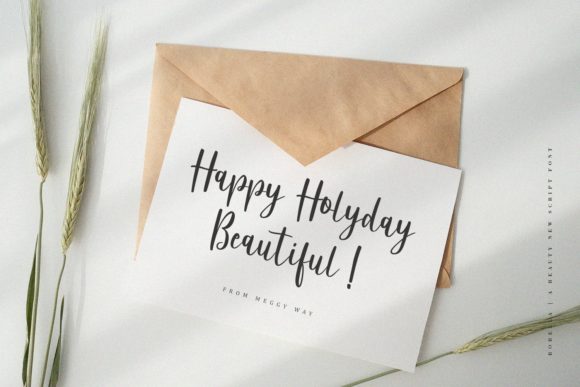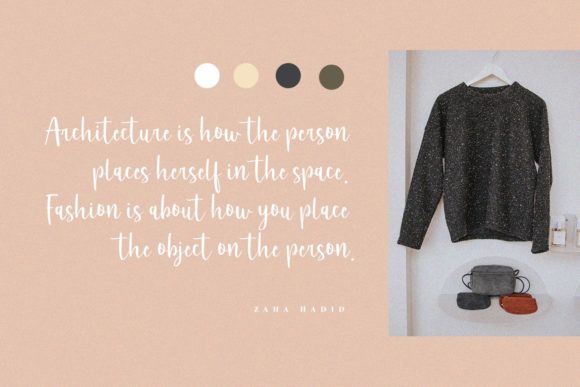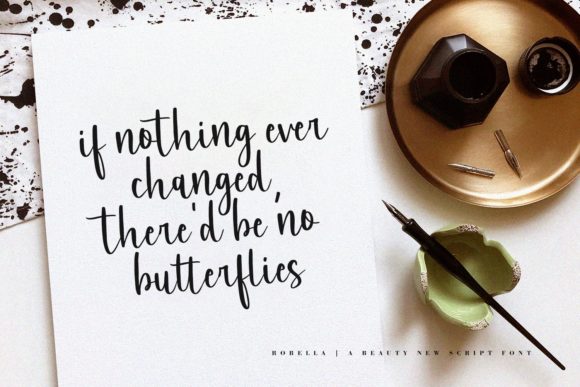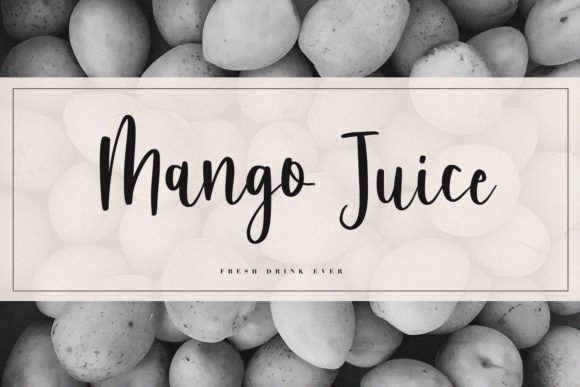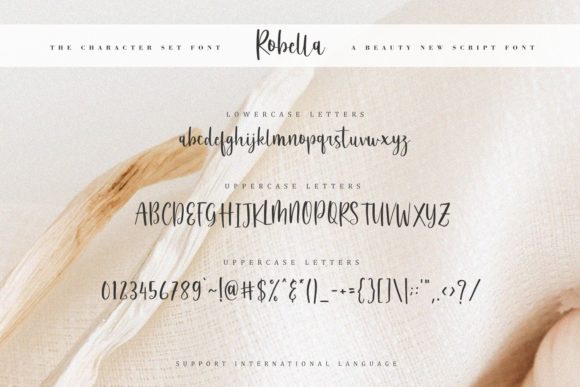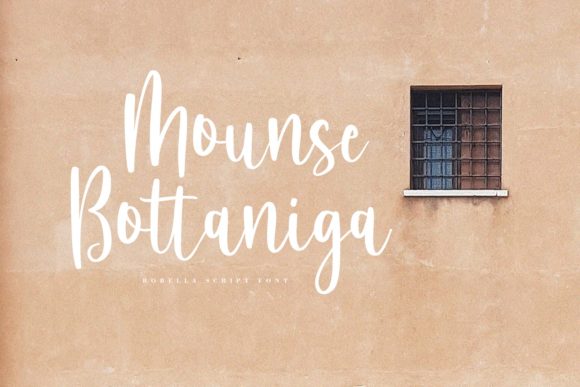
Introduction to Robella Font
As a designer, there’s nothing quite like the thrill of discovering a new font that perfectly captures the essence of your creative vision. For me, it was a late-night brainstorming session with a blank page and a flickering computer screen. I was on the hunt for the perfect handwritten font to bring a magazine cover to life. That’s when I stumbled upon Robella Font – a charming and elegant font that has since become a staple in my design arsenal.
What I love about Robella Font is its versatility and high quality, making it a valuable resource for any designer looking to add a touch of personality to their creative project. With its transparent background and free download option, it’s a design resource that’s both accessible and effective. Whether you’re working on a branding project, designing a mug, or crafting a book cover, Robella Font is sure to bring a unique and eye-catching touch to your work.
Key Features of Robella Font
- High-quality font designed for creative projects, ideal for designers and artists working on unique and imaginative concepts.
- Transparent background option allows for seamless integration with various design elements and backgrounds.
- Designed at a high resolution (300 DPI) for crisp and clear display, making it suitable for print and digital applications.
- Unique and stylish design makes it perfect for adding a touch of elegance and sophistication to any creative project.
Honest Review: Robella Font
I recently had the chance to work with the Robella Font, and I must say it’s a fantastic addition to any design project. This free download has been a game-changer for my creative endeavors.
- ✨ High-quality typography: The Robella Font boasts a beautiful, elegant design that’s perfect for a variety of projects.
- ✨ Versatile: This font can be used for both digital and print designs, making it a valuable resource for any designer.
- ✨ Easy to use: With a transparent background, I can easily place this font over any background image or color without worrying about any visual distractions.
However, I do have to mention a few limitations:
- ⚠️ Limited character set: While the font itself is beautiful, I found that the character set is somewhat limited, which may cause issues for longer texts.
- ⚠️ Not ideal for bold text: In some cases, the font may not be the best choice for bold or italic text, as it can lose some of its elegance.
Overall, I’m really impressed with the Robella Font. Its high-quality design and versatility make it a great resource for any creative project. While it may have a few limitations, I’d definitely recommend giving it a try.
Tips for Getting the Most Out of Robella Font
To get the most out of the Robella Font, consider using it in conjunction with other design elements to create a cohesive and visually appealing design. The font’s transparent background makes it easy to use on any background, and its free download availability means you can use it in as many projects as you like.
The Robella Font is a versatile design resource that can be used in a variety of creative projects. Some common use cases include: